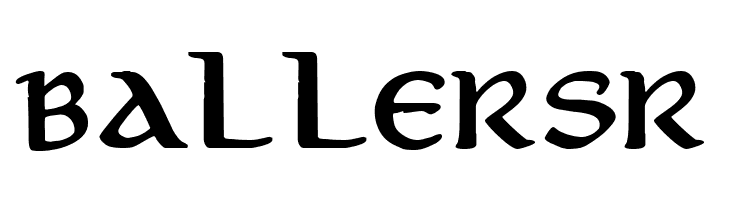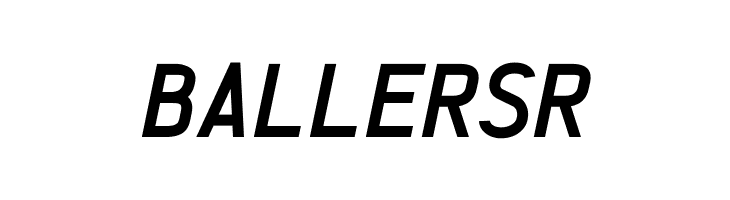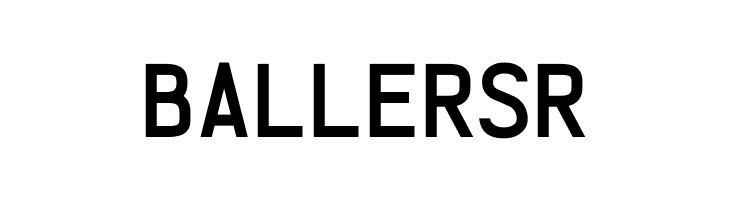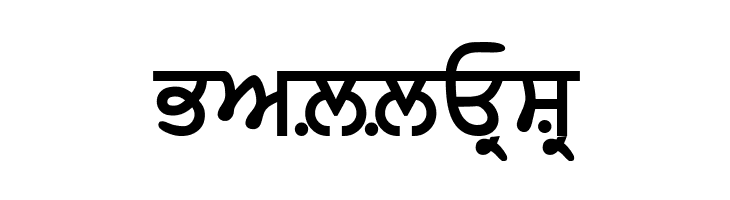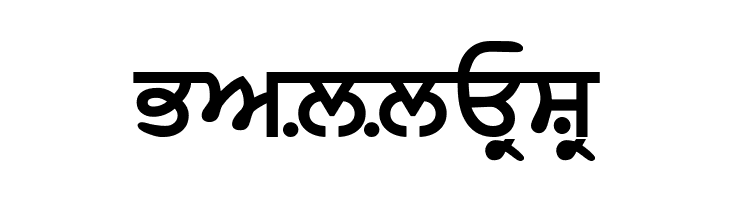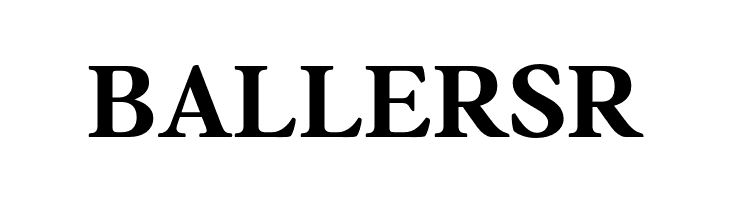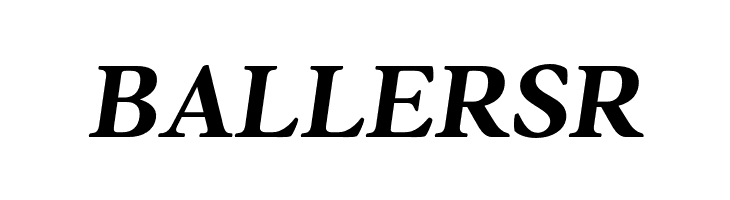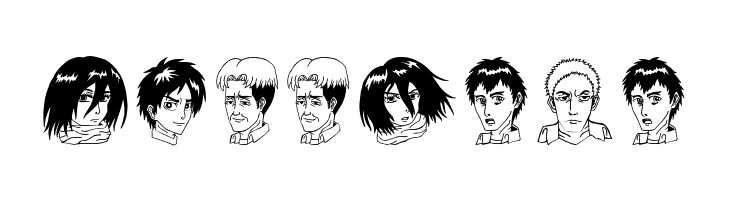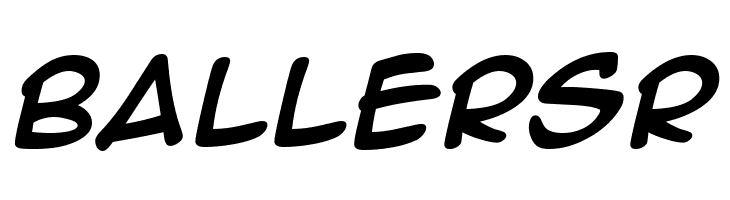
A bold and italic font with a modern, dynamic style.
An ornate, bold, and italicized decorative font with elegant flourishes.
A bold, high-contrast serif font with strong, pronounced serifs.
A futuristic, geometric font with circular nodes and connecting lines.
A futuristic, bold, and italic font with a mechanical, circuit-like design.
A bold blackletter font with sharp, angular lines and a dramatic presence.
A bold, italicized font with angular, dynamic characters and a modern Gothic flair.
A bold, brush-stroke font with an expressive and artistic style.
A bold, handwritten-style font with a playful and dynamic appearance.
A bold, playful font with rounded, italicized letterforms.
Bold, decorative font using anime character faces as glyphs.
A playful, bold font with rounded, hand-drawn letterforms.
A bold, playful handwritten font with a dynamic and energetic style.
A playful, italicized handwritten font with smooth, bold strokes.
A bold, playful font with rounded, cartoon-like characters and a casual, handwritten style.
A bold, italicized font with a playful and dynamic style.
A playful, italicized handwritten font with smooth, rounded strokes.
A playful, handwritten-style font with rounded, informal letterforms.
A bold, medieval-inspired font with sharp, angular lines and decorative elements.
A bold, medieval-inspired font with sharp angles and smooth curves.
A bold, condensed monospaced font ideal for coding and technical use.
A bold, italicized, and condensed font with a modern and dynamic style.
A bold, classic serif font with strong, pronounced strokes and well-defined serifs.
A bold, italic serif font with elegant curves and strong strokes.
A playful, handwritten font with rounded, irregular letterforms.